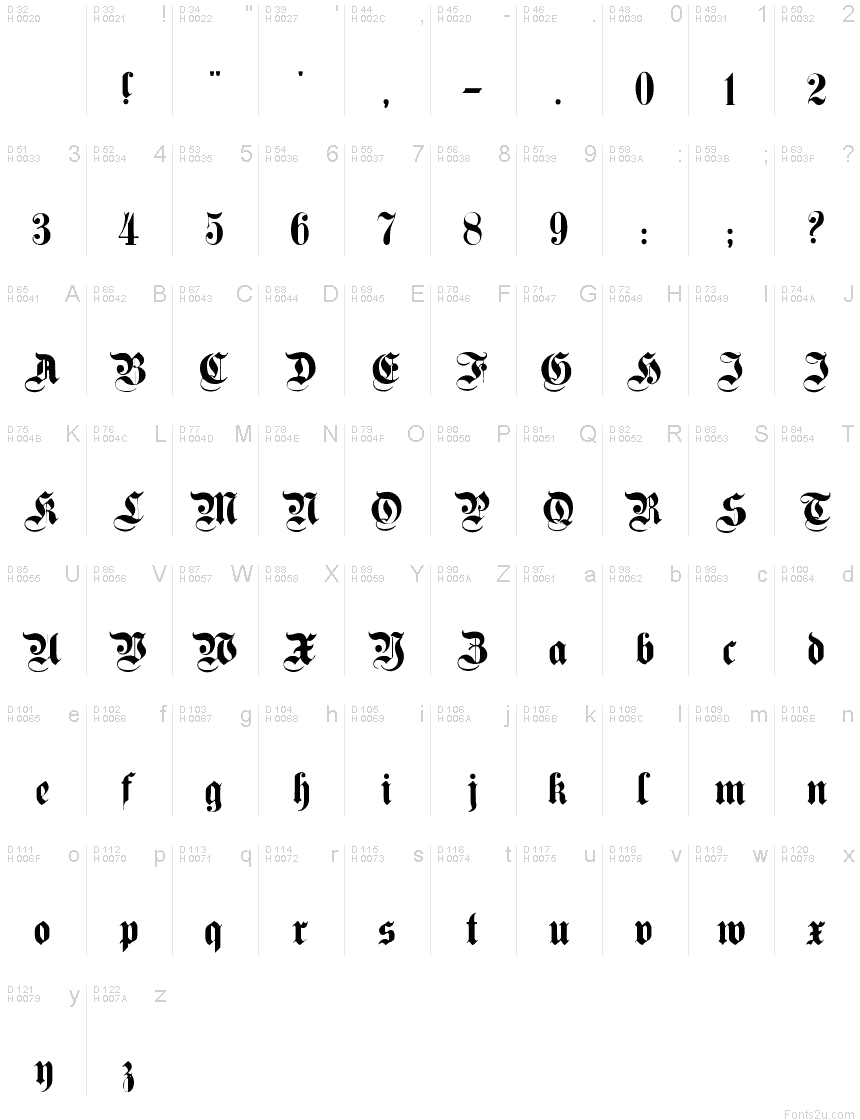
PlainGermanica
Plain Germanica by PJL is a free medieval Gothic font with the dense, ceremonial rhythm of blackletter signage. The letters mix broad, carved-looking strokes with sharp diamond tips and a few dramatic curls, so the font feels formal, old-world, and a little severe without losing movement.
It fits naturally in poster titles, book covers, music packaging, tavern menus, and event branding where a historic voice matters more than neutrality. As a free font, it is especially useful for title cards, logos, and short headline work, because those heavy verticals and ornate turns give even a few words a strong period character.